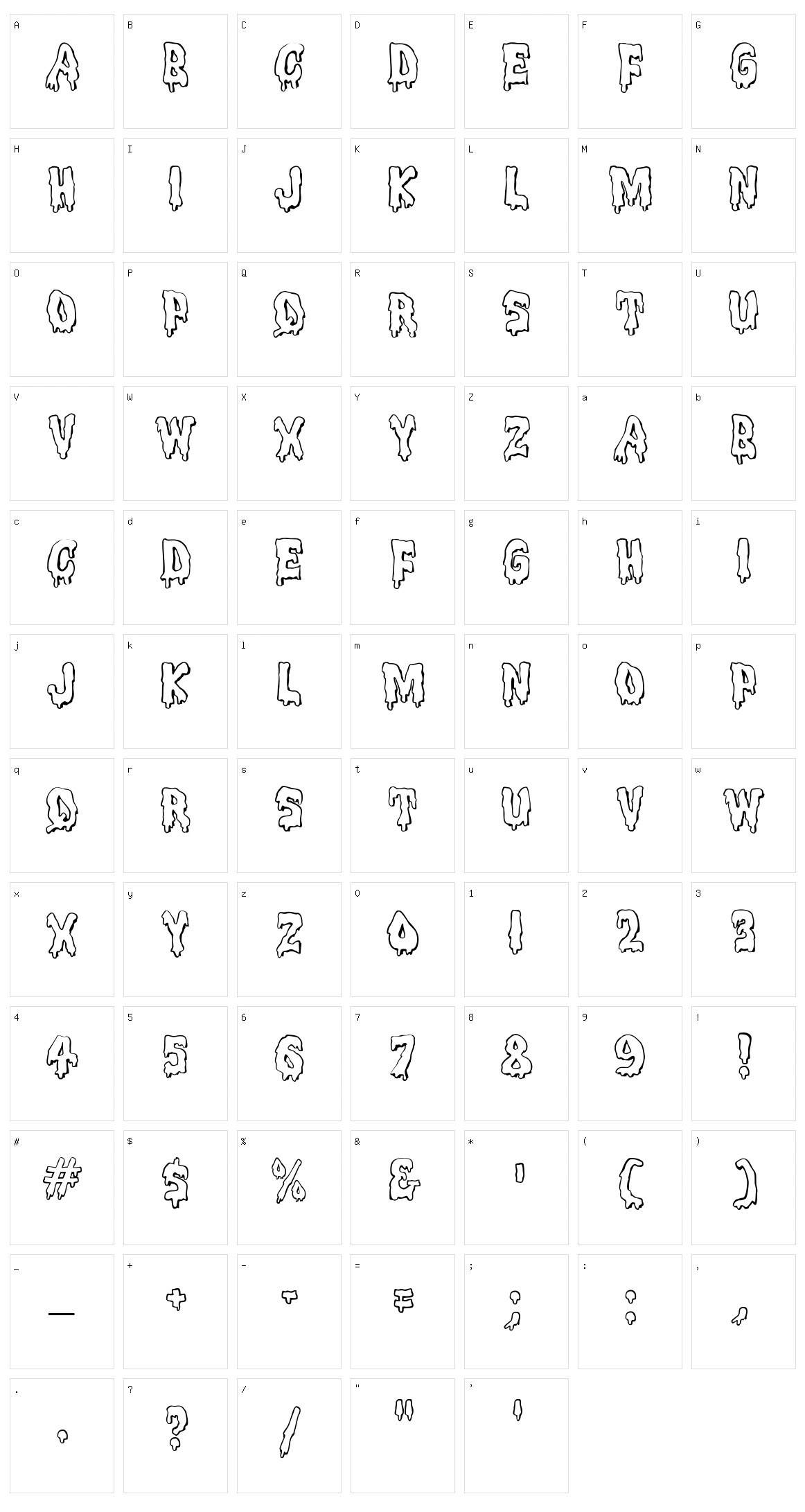
The free font Meltdown MF is carefully designed by Richard William Mueller, showcasing a thoughtful balance of creativity and usability and falls under the Horror font style. When you download the ZIP file, it contains only 46.81 KB of font files, making it lightweight and quick to download. Please review the license details below to understand permitted usage and distribution rights. If license information is not available, we recommend using this font for personal projects only or contacting the author directly for commercial usage permissions.